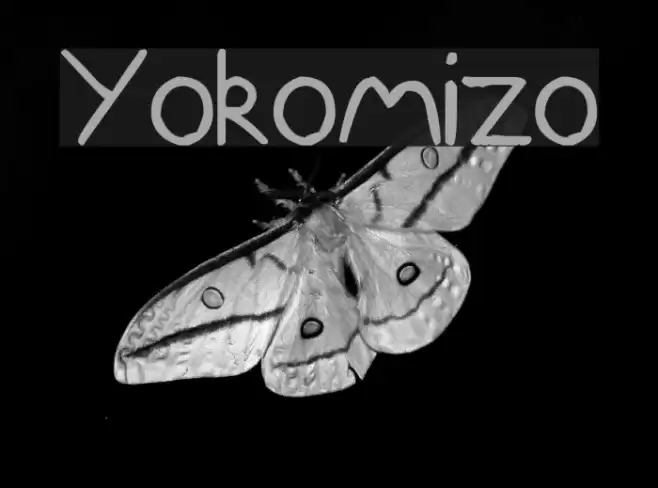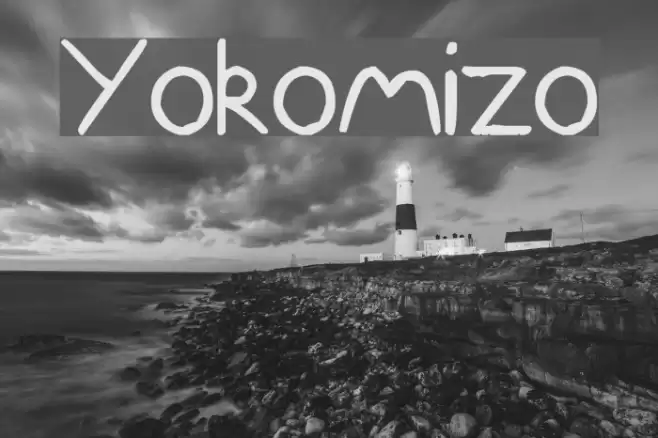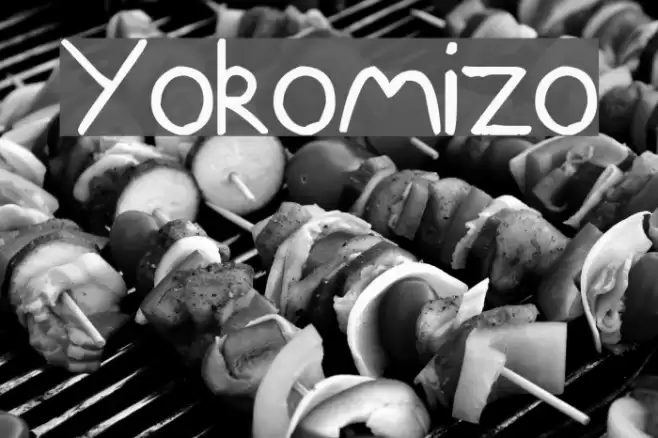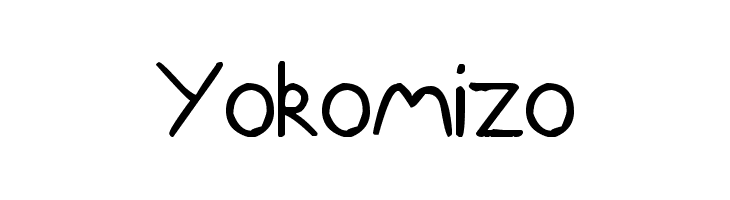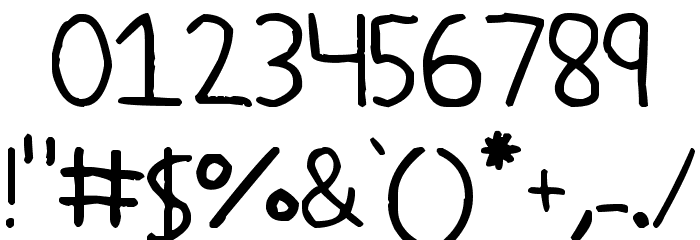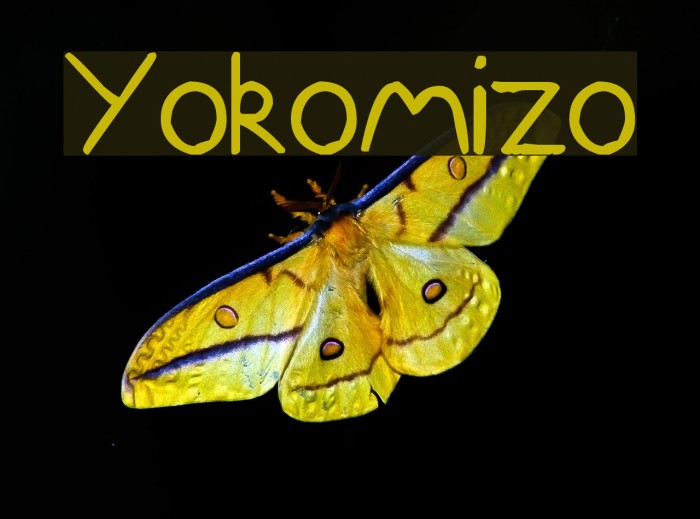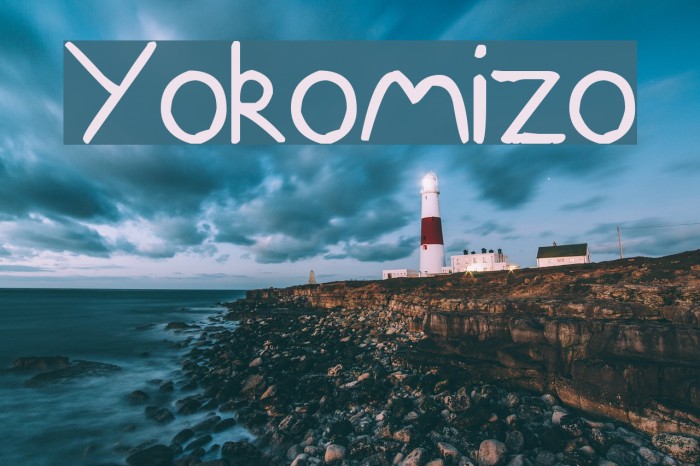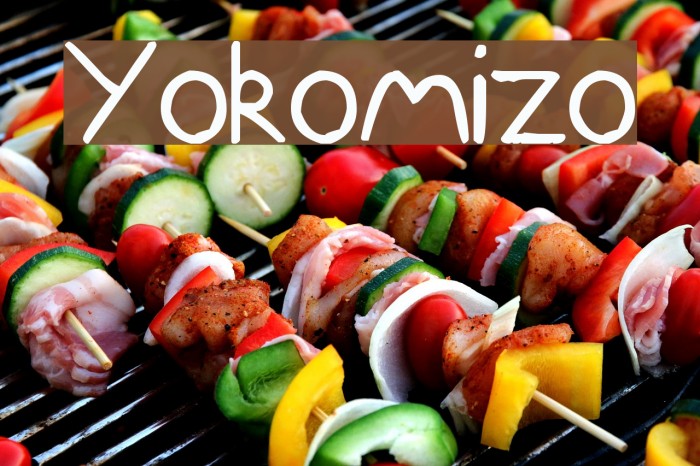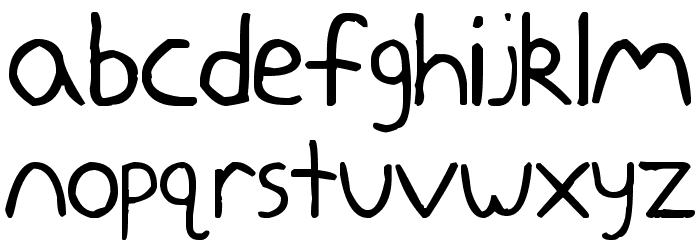
Yokomizo Font
Yokomizo Description
This font features a playful and casual handwritten style, characterized by its irregular strokes and organic flow. The letters are slightly uneven, giving it a charming, informal appearance. The uppercase and lowercase letters maintain a consistent style, with rounded edges and a slight tilt that adds to its whimsical nature. The numerals and special characters follow the same design principles, ensuring a cohesive look across all glyphs. This font exudes a friendly and approachable vibe, making it suitable for projects that require a personal touch.
A playful, handwritten font with a casual and friendly style from Uncategorized fonts.
- Proposed Projects: Ideal for greeting cards, children's books, personal blogs, and informal branding.
- Overall Style: Casual
- Use Case: Headlines, Informal text, Creative projects